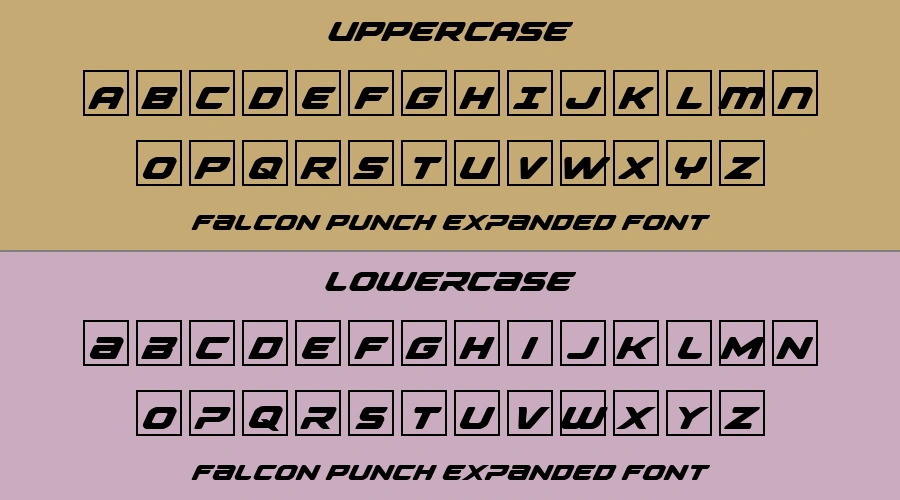
About Falcon Punch Expanded Font
Falcon Punch Expanded Font stands out for its distinctive combination of original character and professional standards. Ideal for advertising headers, it provides the originality and visual authority that professional projects demand. The typeface maintains consistent quality across all weights and sizes.
Key features include refined ligatures and practical initial forms, enhancing typographic expression. In product names applications, Falcon Punch Expanded Font demonstrates exceptional purchase influence. The tail length and character contribute to its distinctive character and professional appeal.